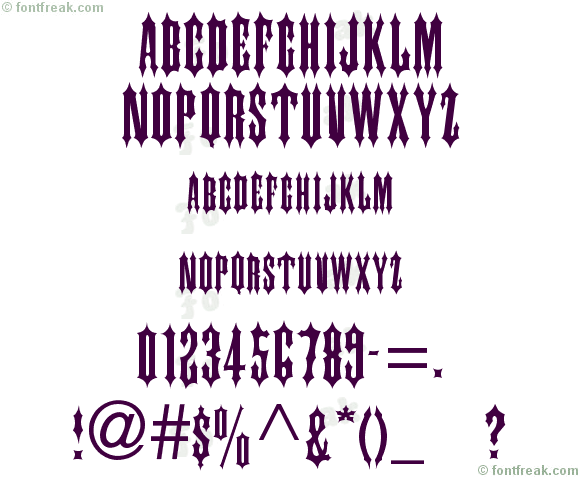
IRONGATE
About Irongate
Irongate is a distinctive display font designed by The Font Garden, characterized by its bold, angular strokes and gothic flair. This typeface stands out as a decorative option, making it ideal for projects that demand a strong visual impact. The font features sharp, serrated edges that give it an edgy and dramatic appearance, while the consistent stroke weight adds a sense of cohesion throughout the characters. The spacing is tight, contributing to its commanding presence, which is particularly effective in grabbing attention.
This font is well-suited for a variety of creative applications. It can enhance the aesthetics of movie posters by imparting a sense of excitement and urgency. Its unique style also makes it perfect for album covers, where a striking visual can draw in potential listeners. Additionally, Irongate can be utilized in restaurant menus to evoke a theme of sophistication and intrigue, especially in establishments that focus on an avant-garde dining experience. Wedding invitations can also benefit from its distinctive character, providing a memorable touch for couples seeking to make a statement.
Target audiences for the Irongate font include graphic designers looking for standout type options, small business owners wanting to create an eye-catching brand identity, and content creators in need of unique typography for their projects. The versatility of this font allows it to cater to various creative needs while maintaining its bold personality.
What truly sets the Irongate font apart is its ability to command attention while retaining an air of sophistication. This font is not just a tool for communication but an artistic statement that can elevate any design project. For those interested, the Irongate font free download offers an excellent opportunity to incorporate this striking typeface into their creative work.